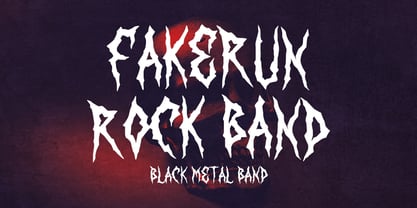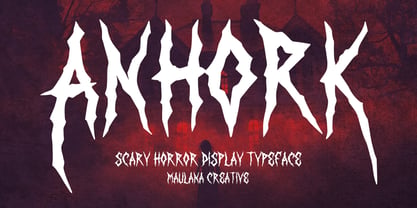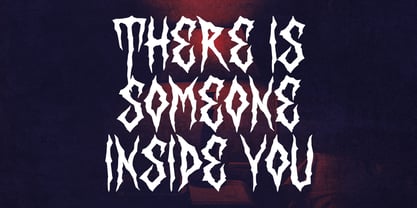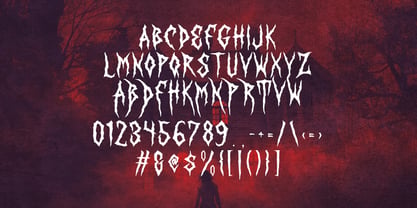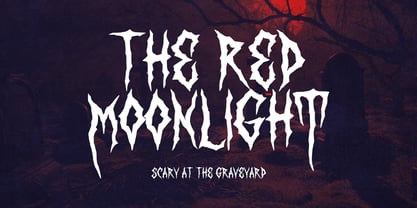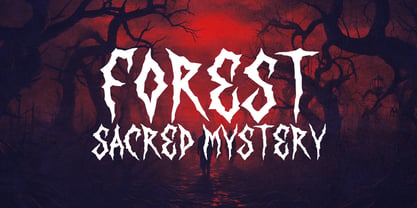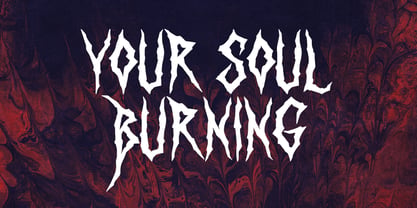
MC Anhork
A família de fontes MC Anhork foi desenhada por Gilang Maulana e publicada pela Maulana Creative. MC Anhork contém 1 estilos. Saiba mais sobre esta família
Anhork is a terrifyingly bold horror display font designed to evoke fear, suspense, and dark mystery. With its jagged edges and sinister strokes, this typeface is perfect for horror movie posters, Halloween flyers, dark branding, scary book covers, creepy games, and haunted house promotions. The sharp, distorted shapes give Anhork a menacing that instantly grabs attention and creates spine-chilling vibes. Whether you’re designing for a thriller, metal band logo, or eerie social media graphics, Anhork brings the perfect balance of fear and style. Make your designs unforgettable with a font that screams horror Anhork.